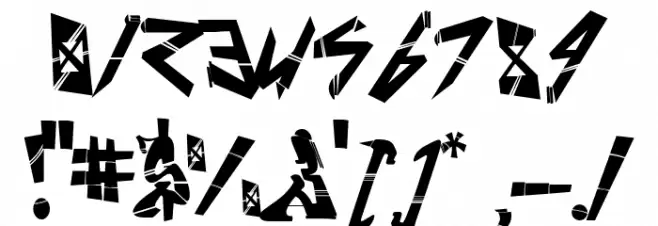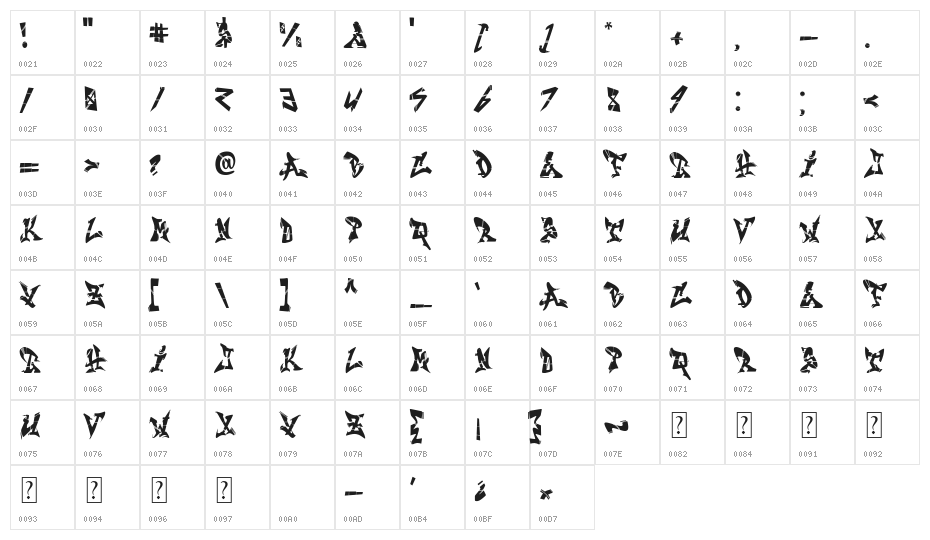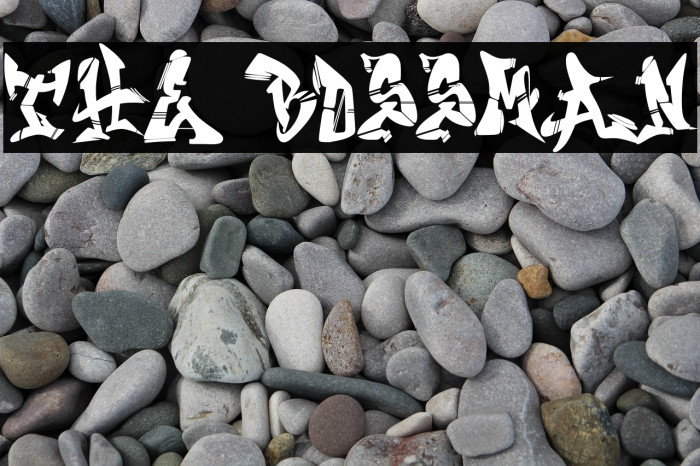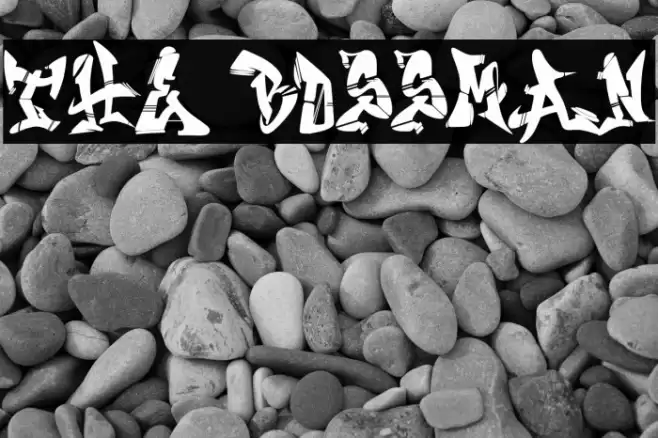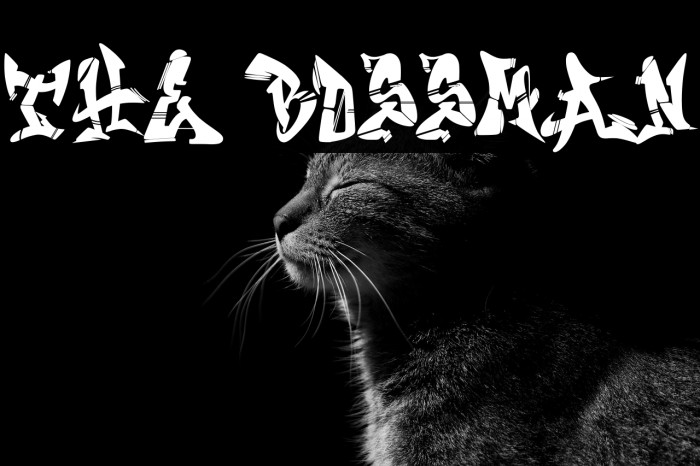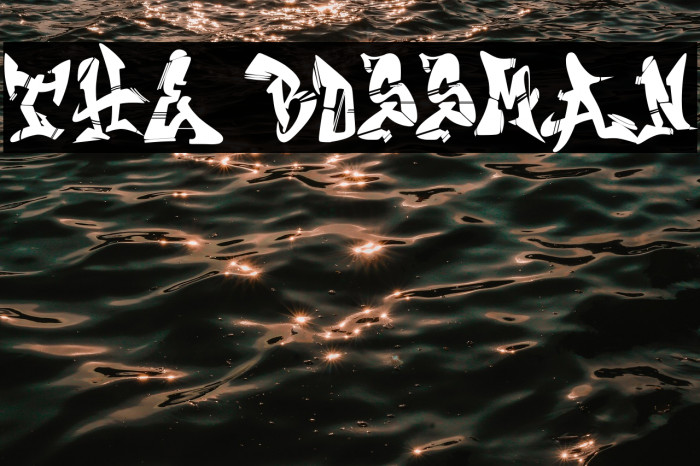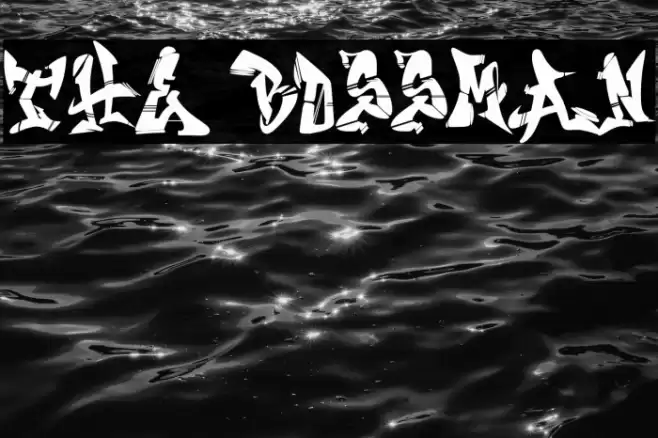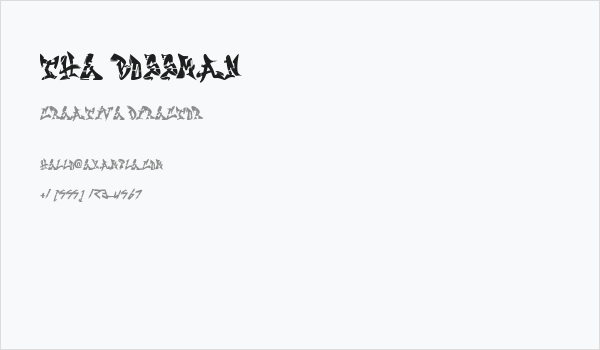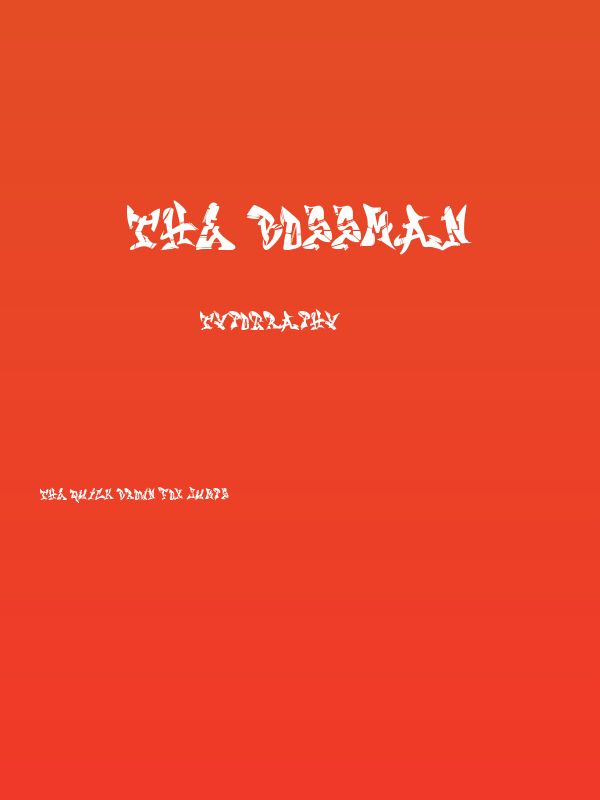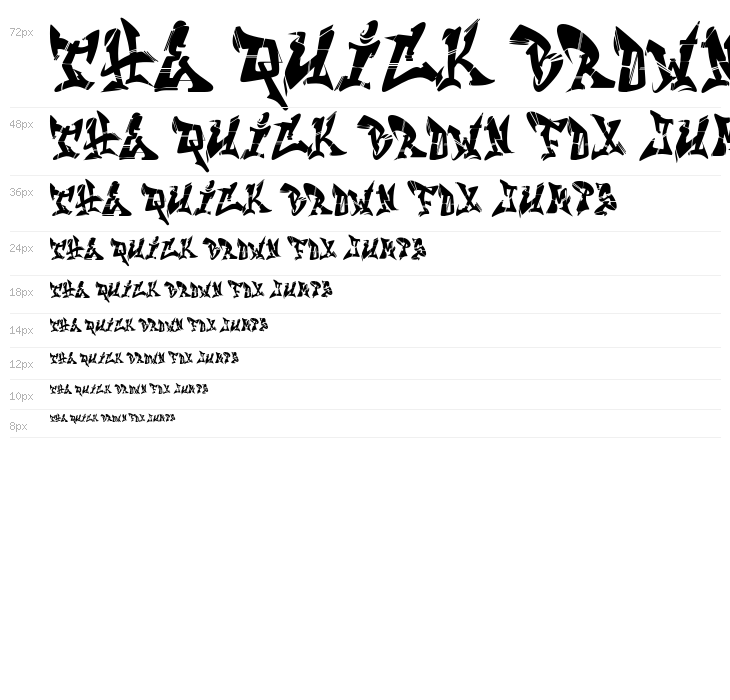
The Bossman Font
The Bossman Description
This font exhibits a bold and aggressive style, characterized by sharp, angular lines and a fragmented appearance. The letters are heavily stylized, with jagged edges and a dynamic, almost chaotic structure that suggests movement and energy. The uppercase and lowercase letters maintain a consistent design, emphasizing the font's unique aesthetic. Numbers and special characters follow the same design principles, ensuring a cohesive look across all elements. The font's striking appearance makes it suitable for attention-grabbing designs.
| Use Case | Logos, Headlines |
| Proposed Projects | Ideal for music album covers, extreme sports branding, or edgy poster designs. |